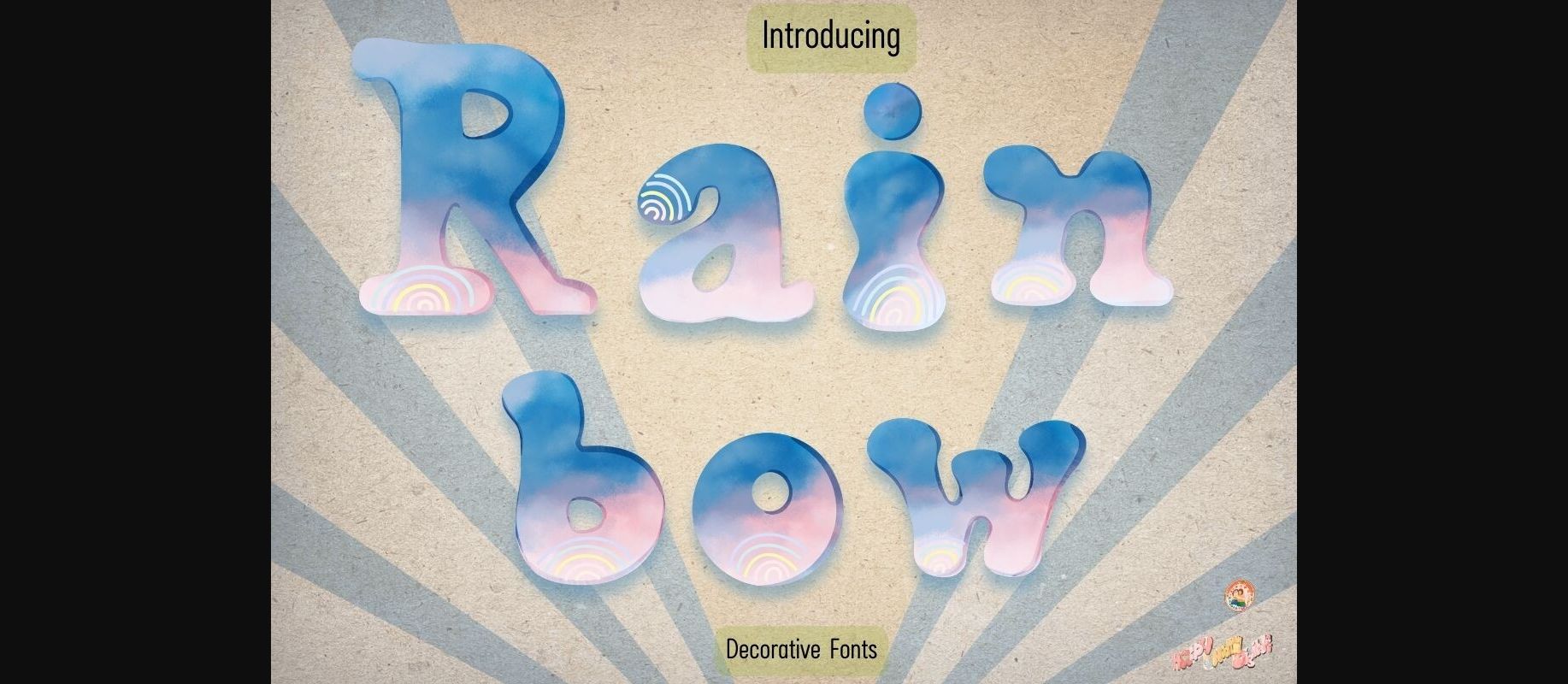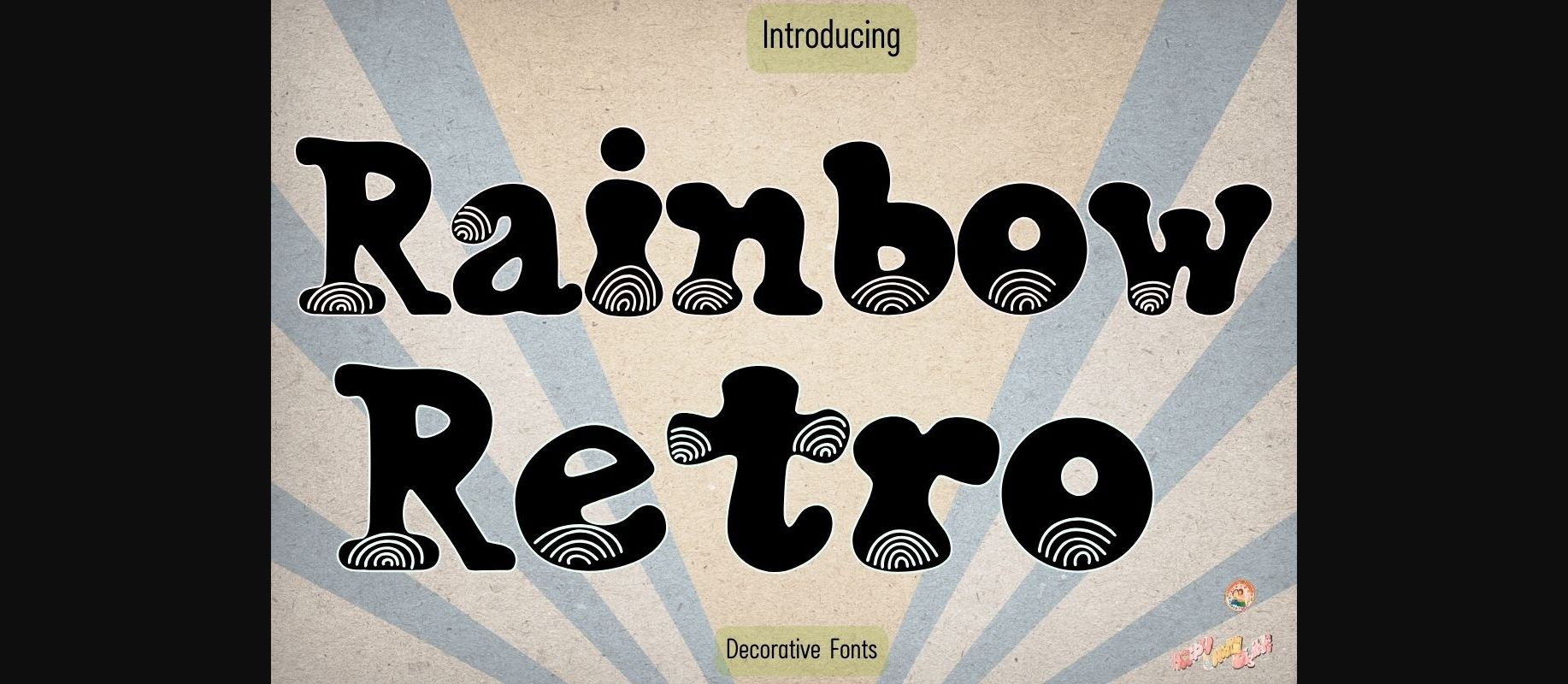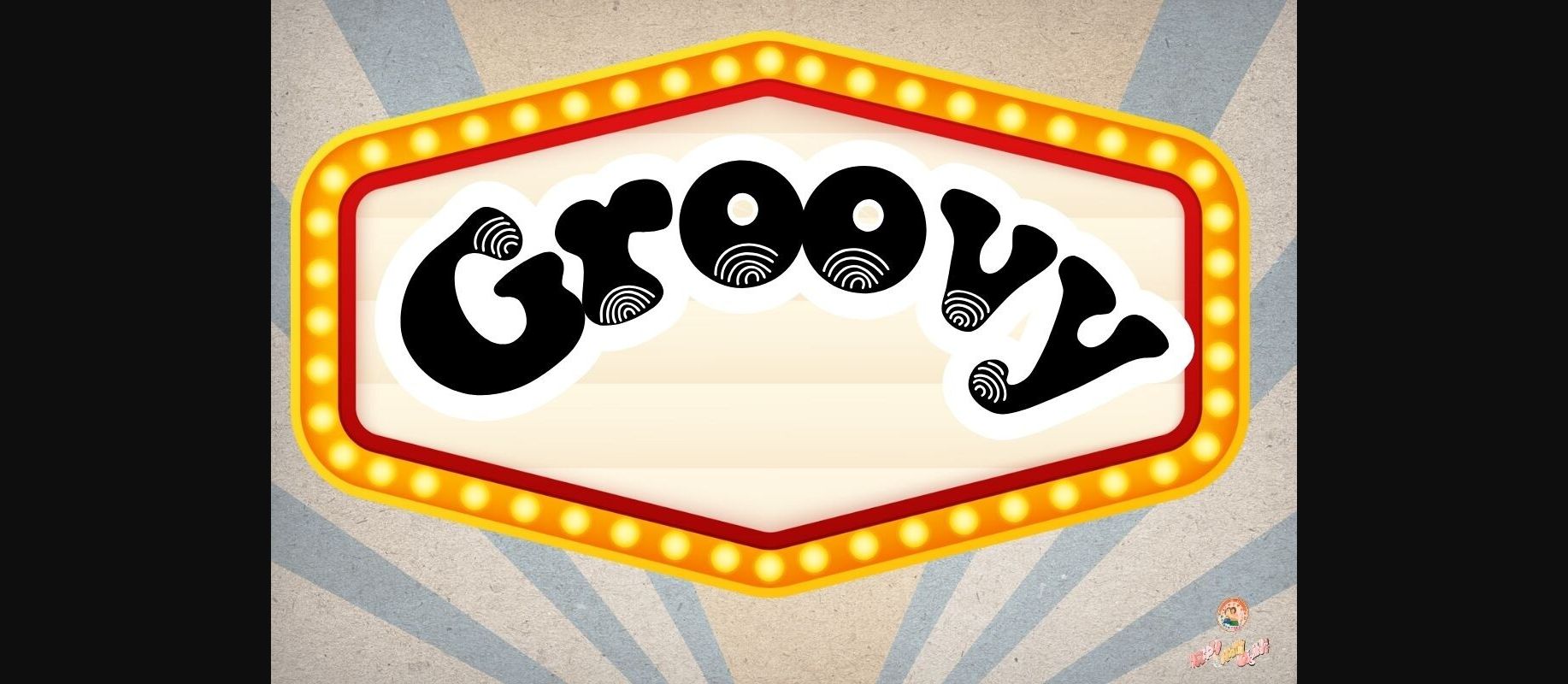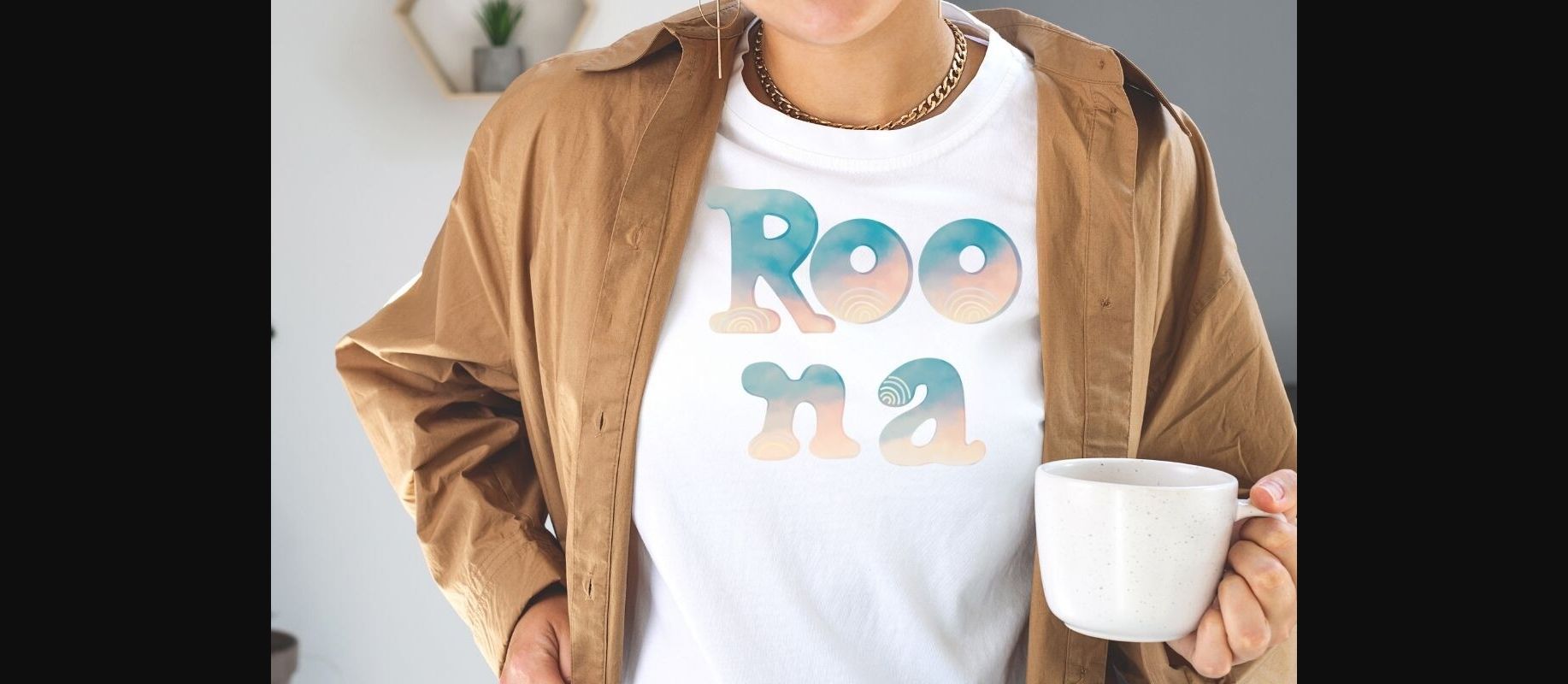
Rainbow Font
About Rainbow Font
Introducing ‘Rainbow Retro font. This decorative typeface features delightful elements integrated into each letter. Whether you’re creating holiday cards, gift tags, o r seasonal banners,t-shirt and Many more children’s products ‘Rainbow Retro Font ’ making it the ideal choice for spreading joy during the holiday season.